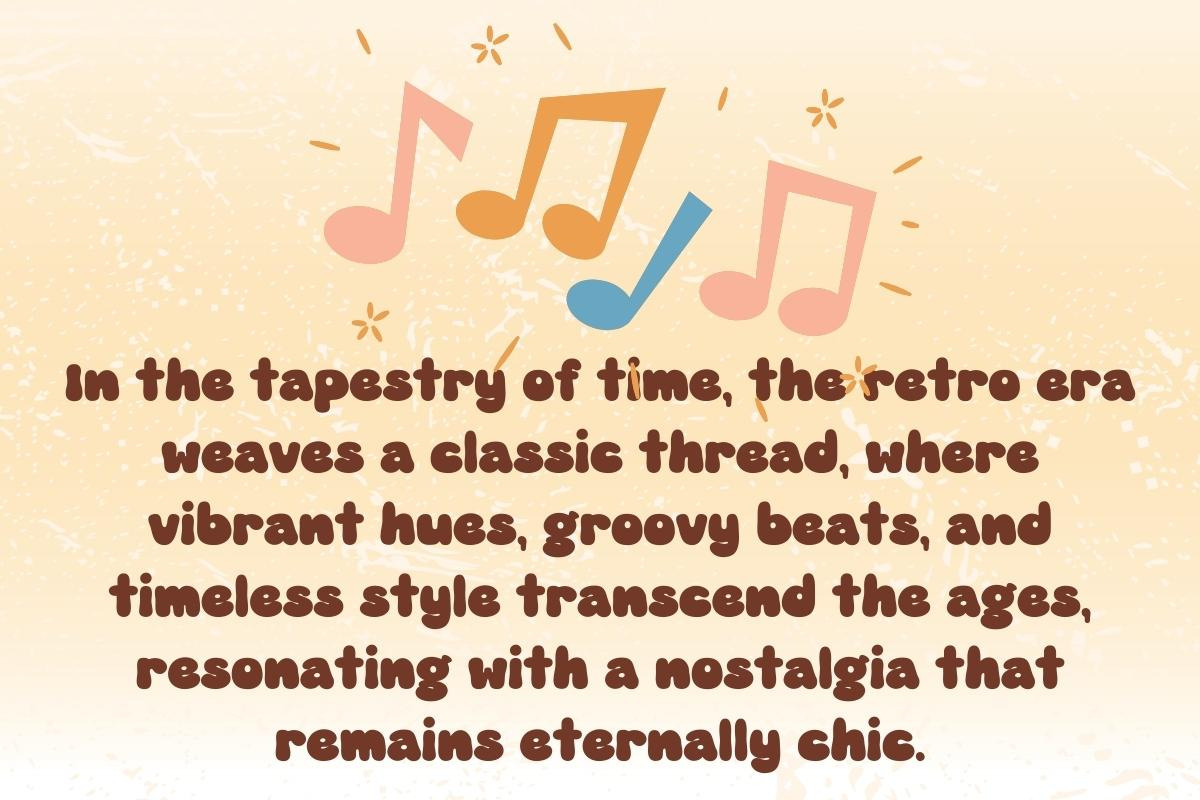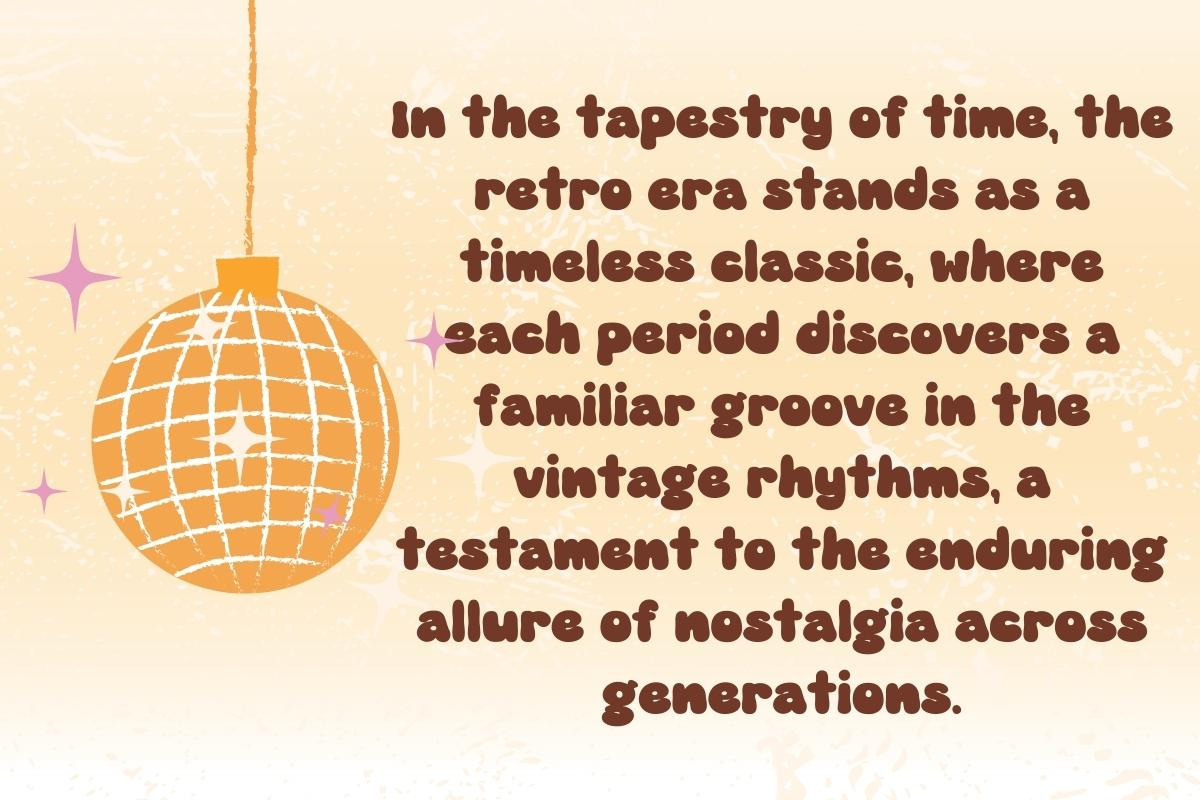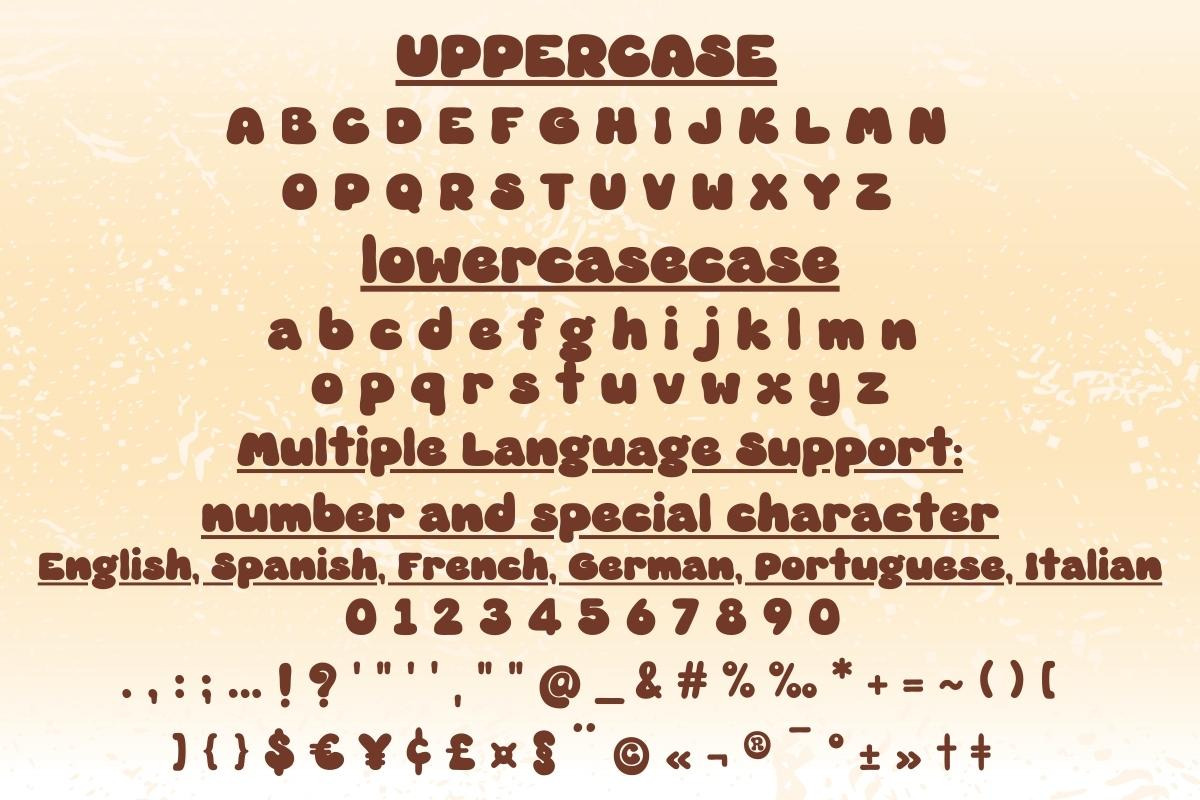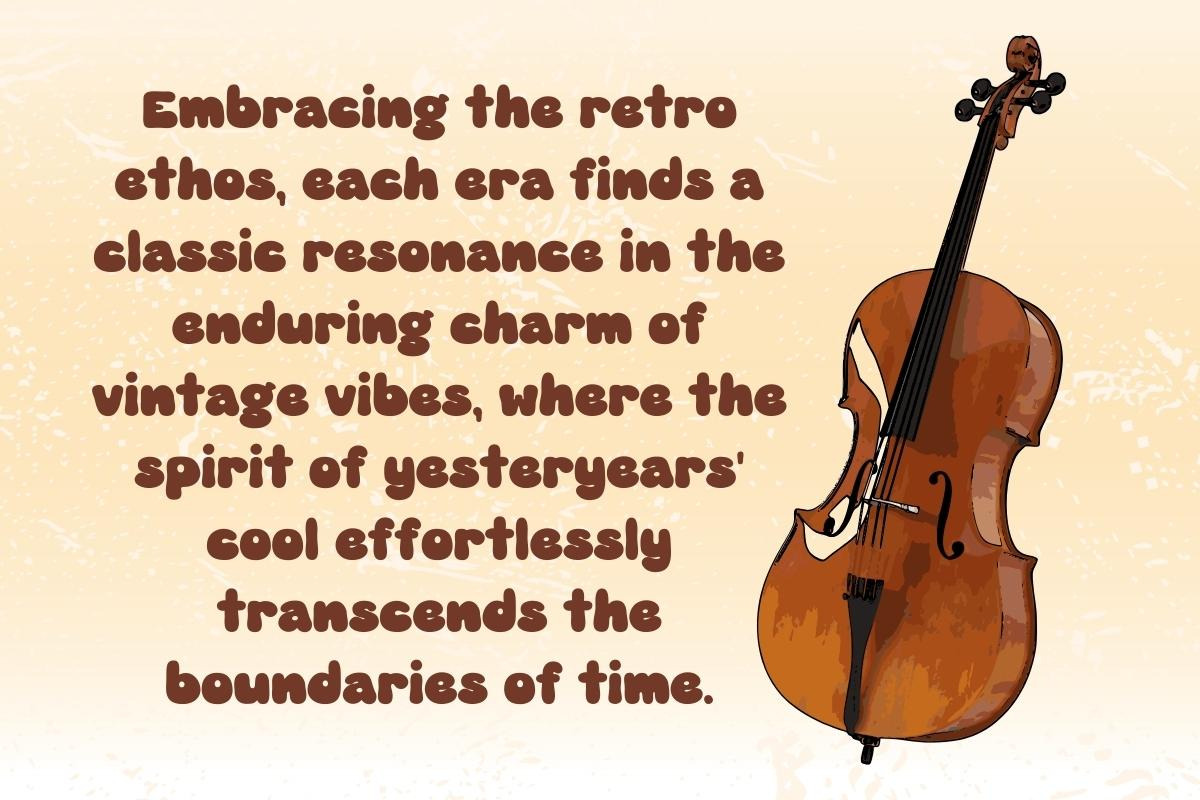
Groovy Retro Era - Handwritting
Step into the whimsical world of text with "Groovy Retro Era" – where letters groove and characters shimmy with playful charm. This font dances through time, fusing nostalgia with a modern twist. Let your words don the groove and invite creativity to your design journey. Embrace the retro vibe, font-lovers!